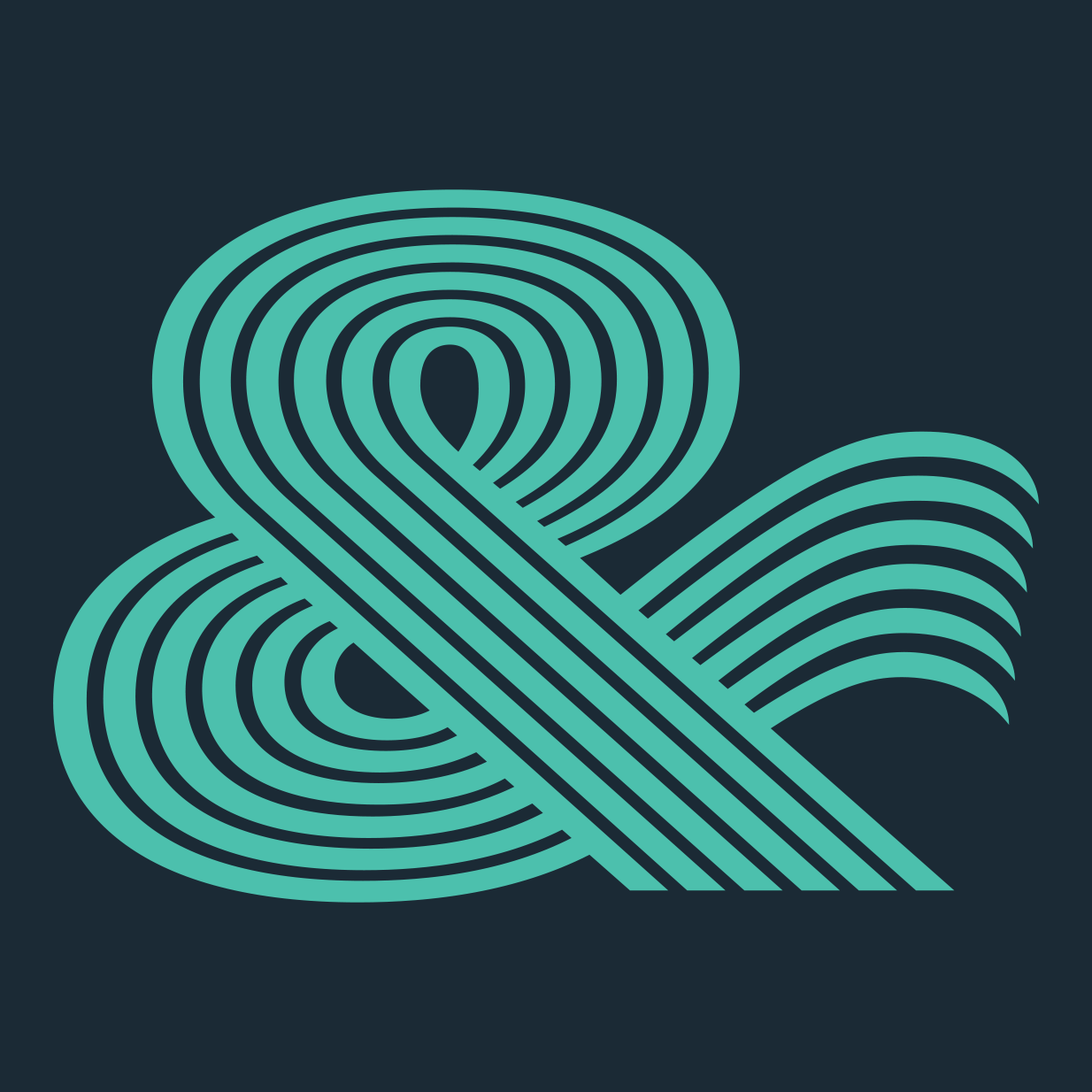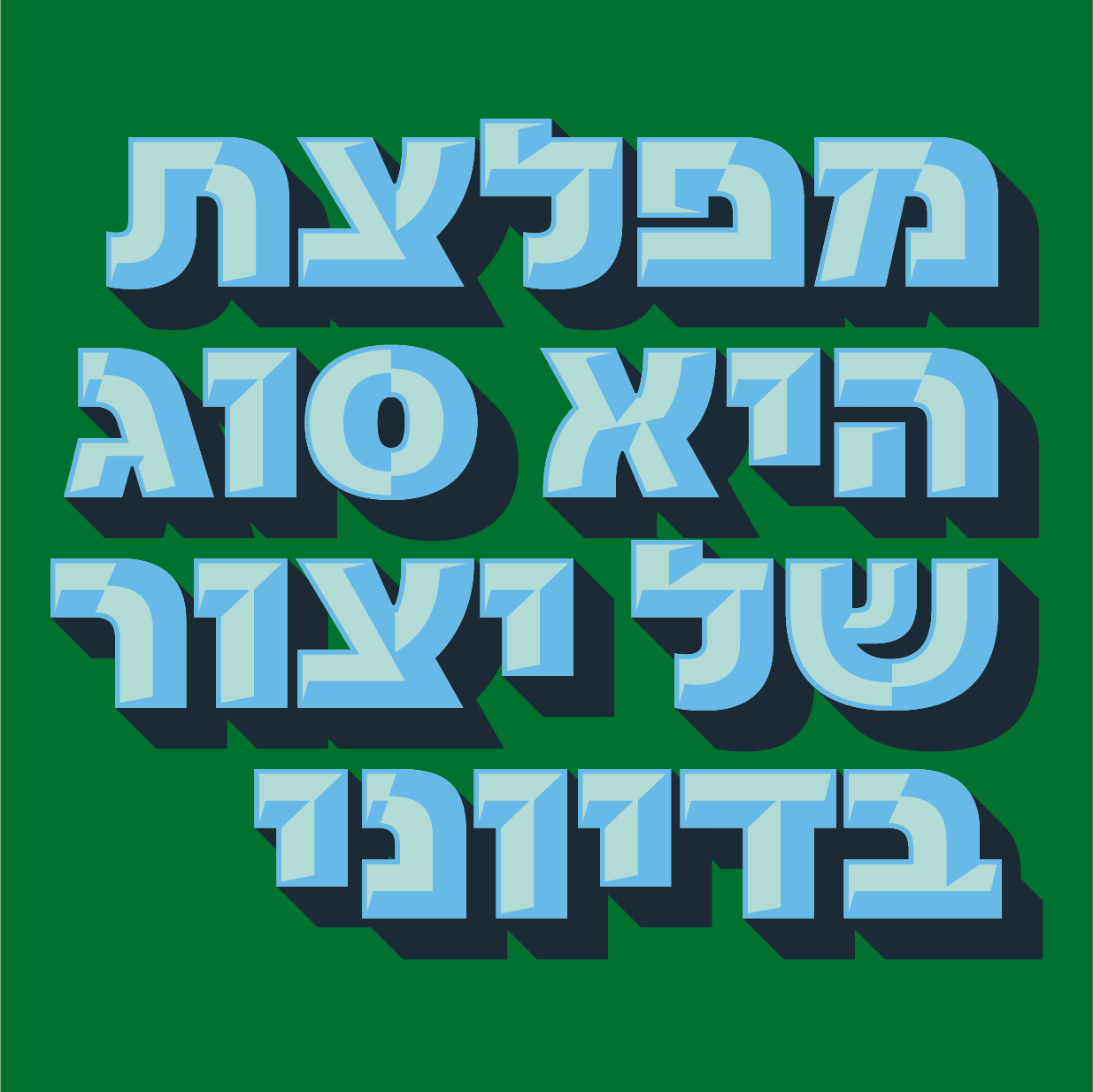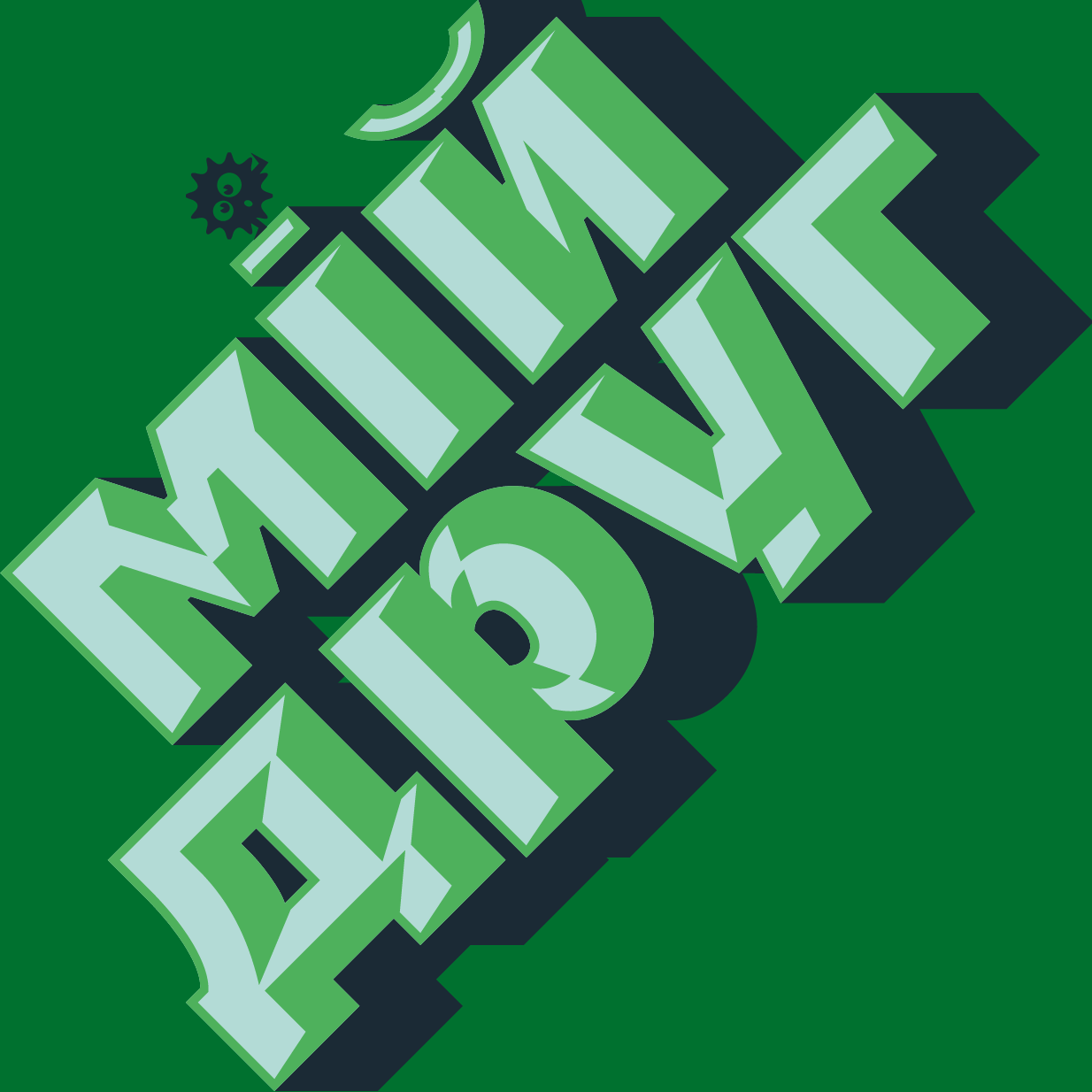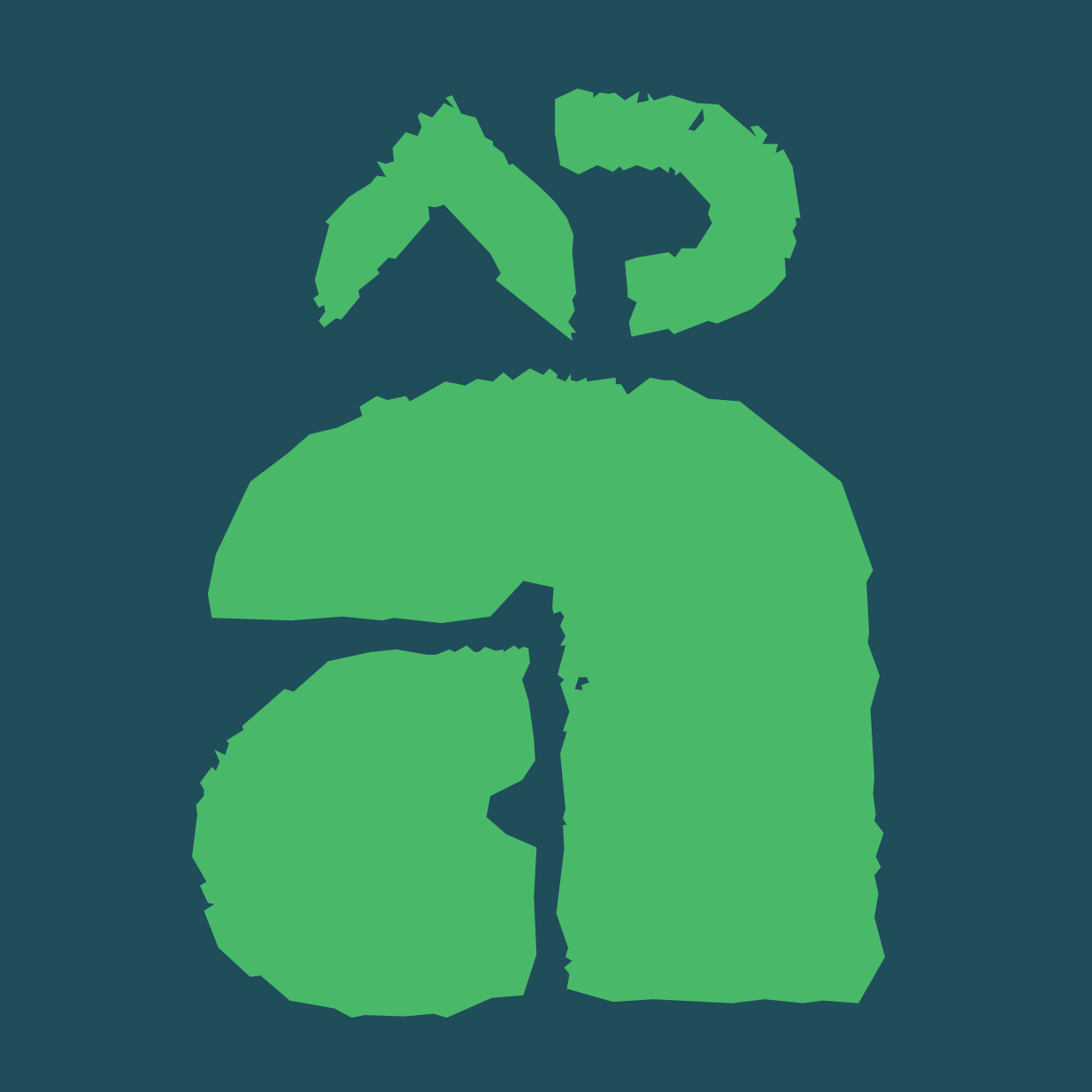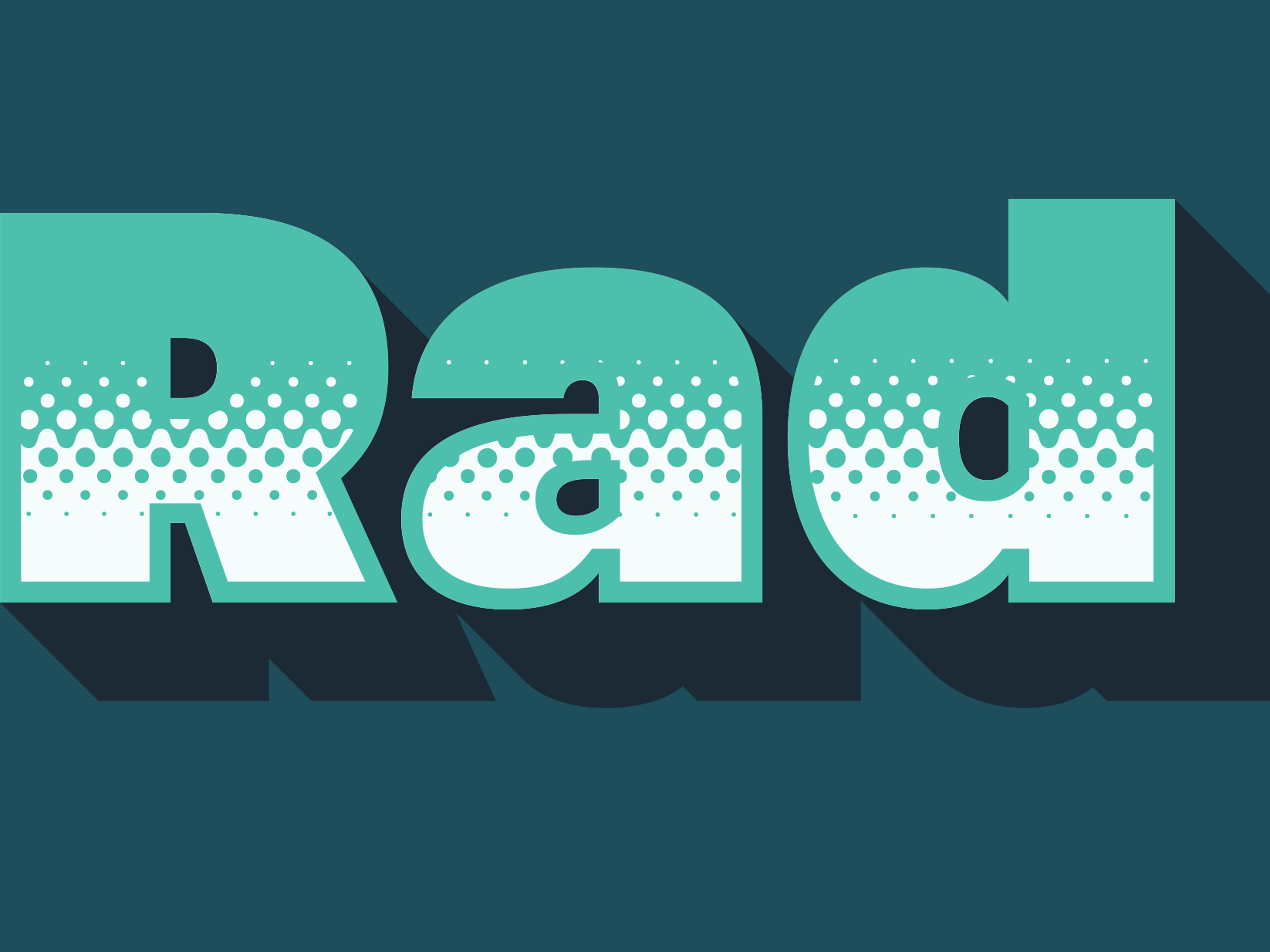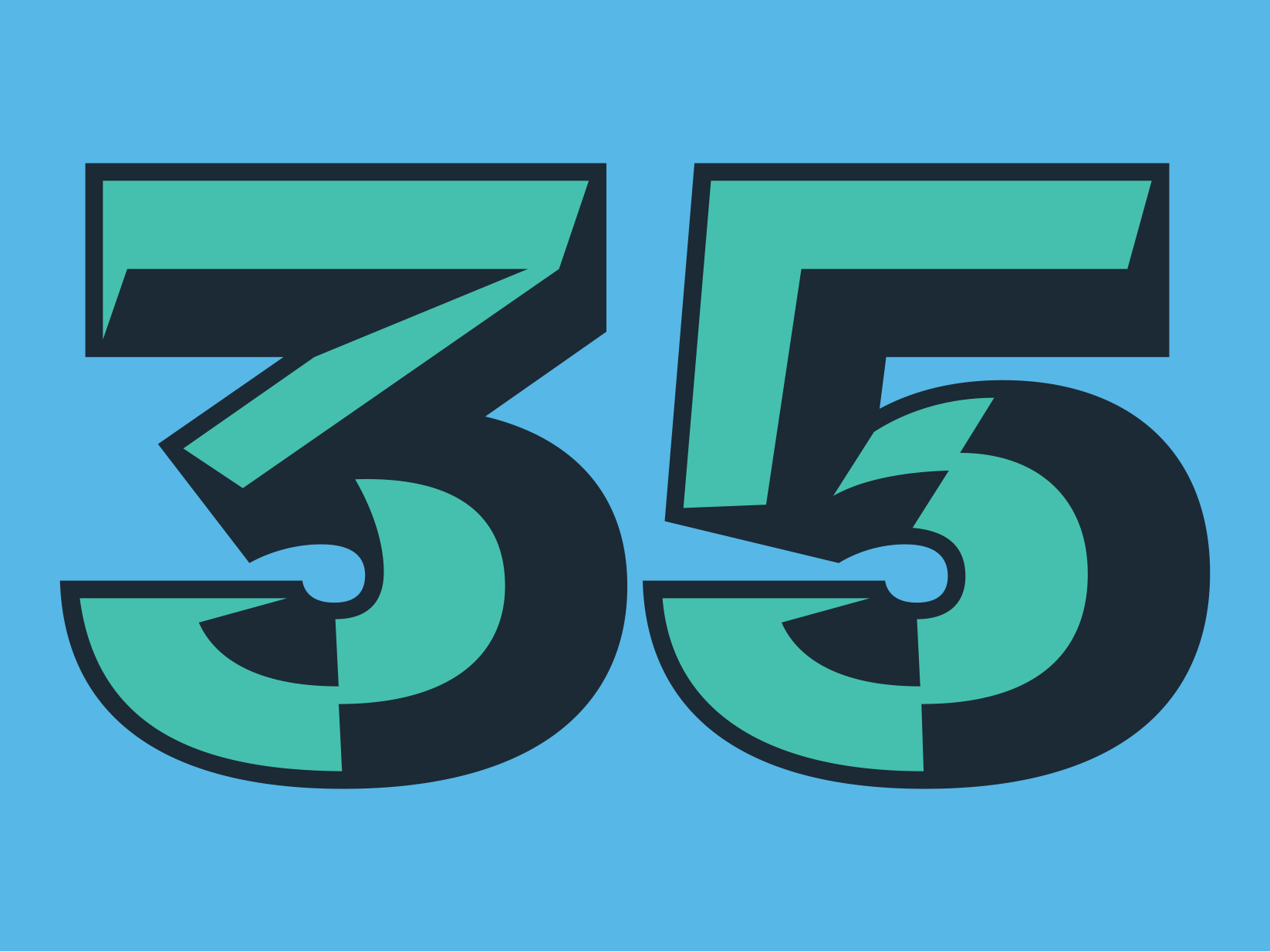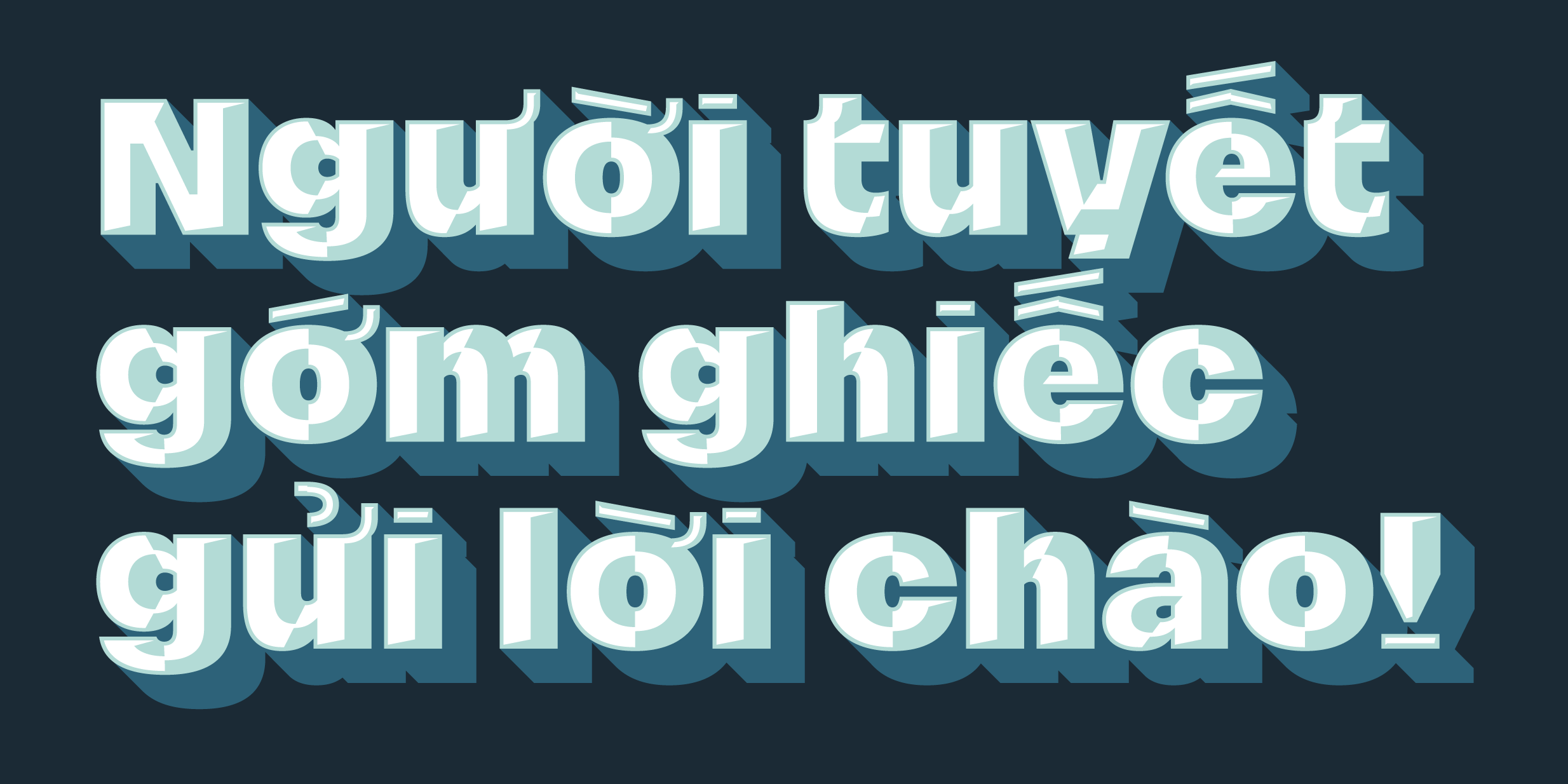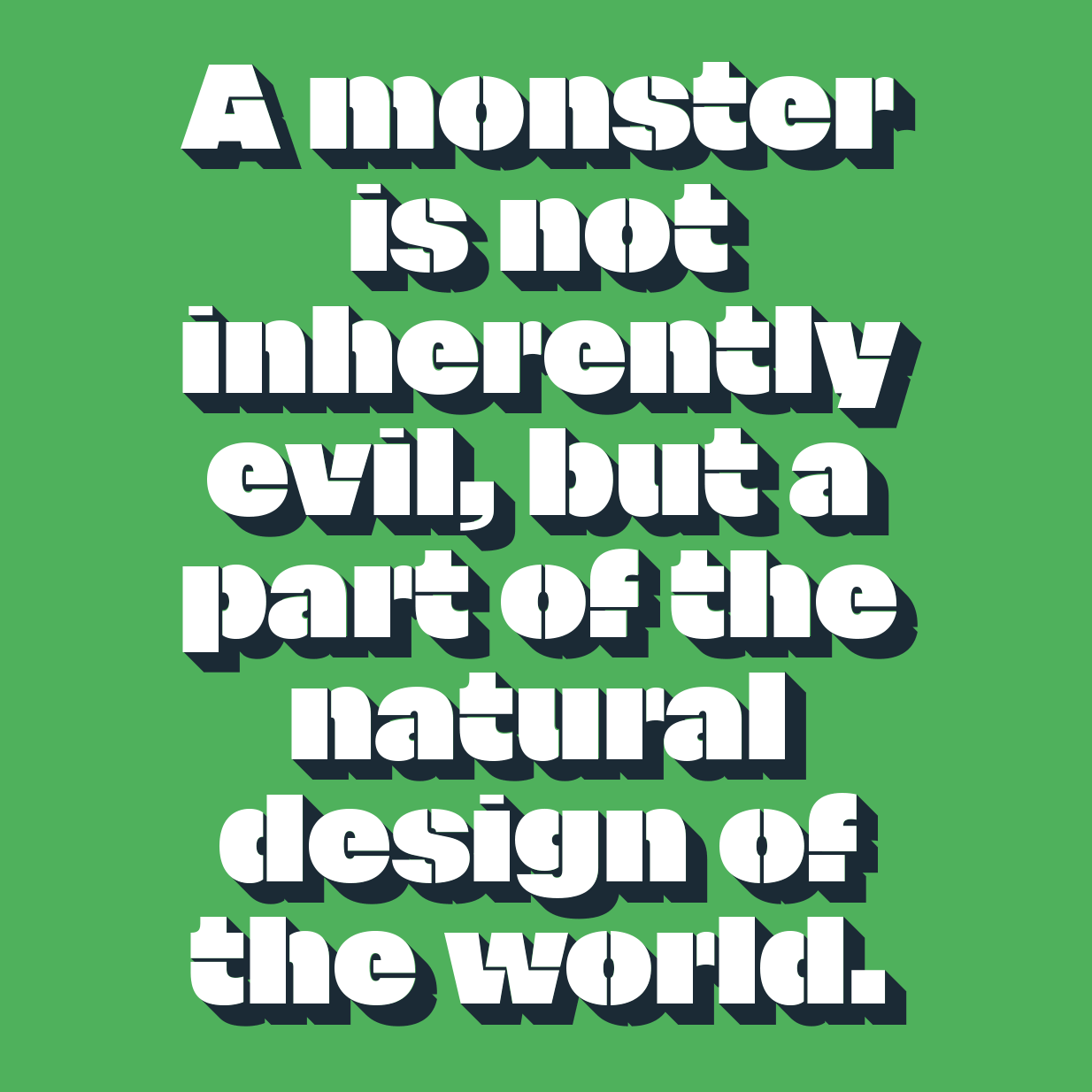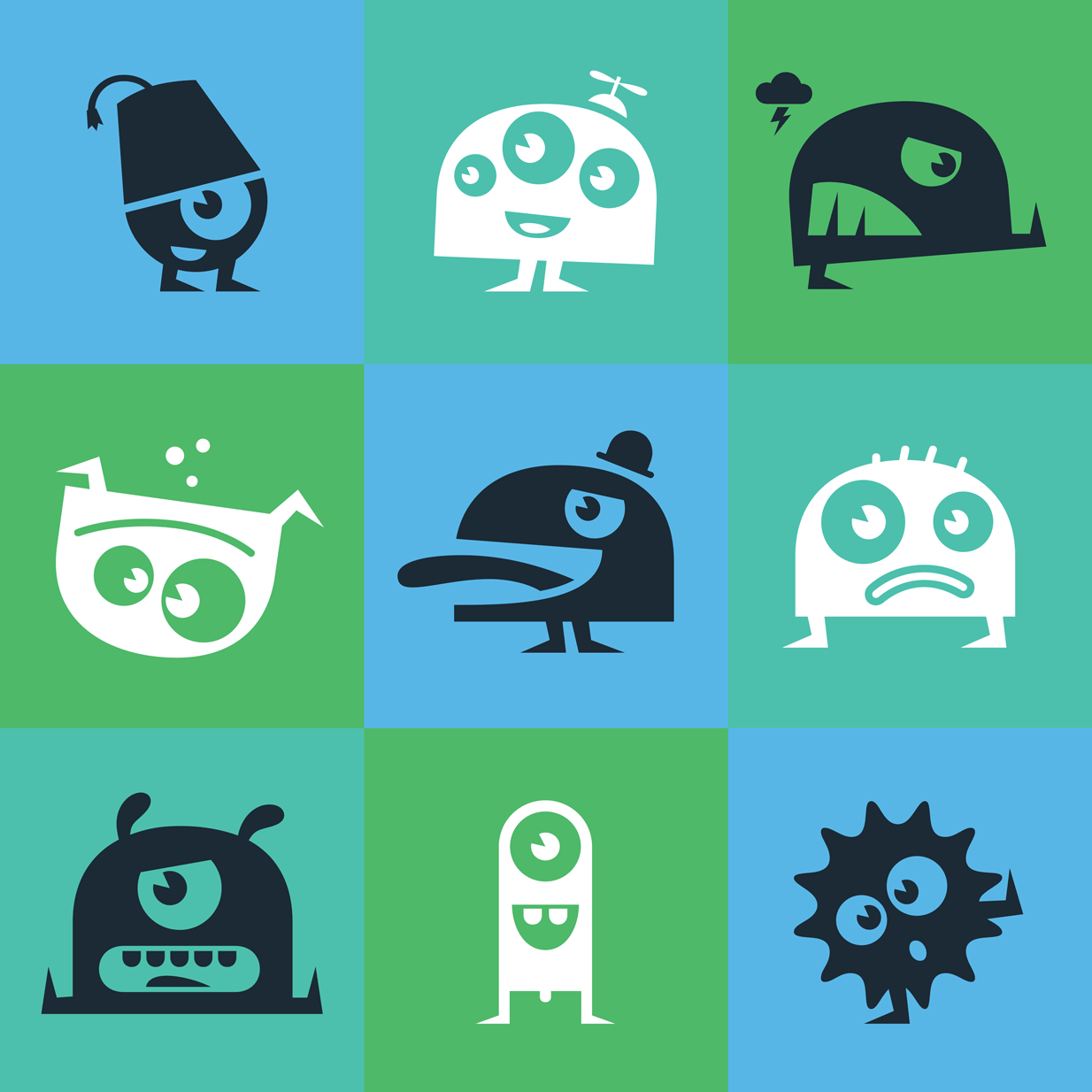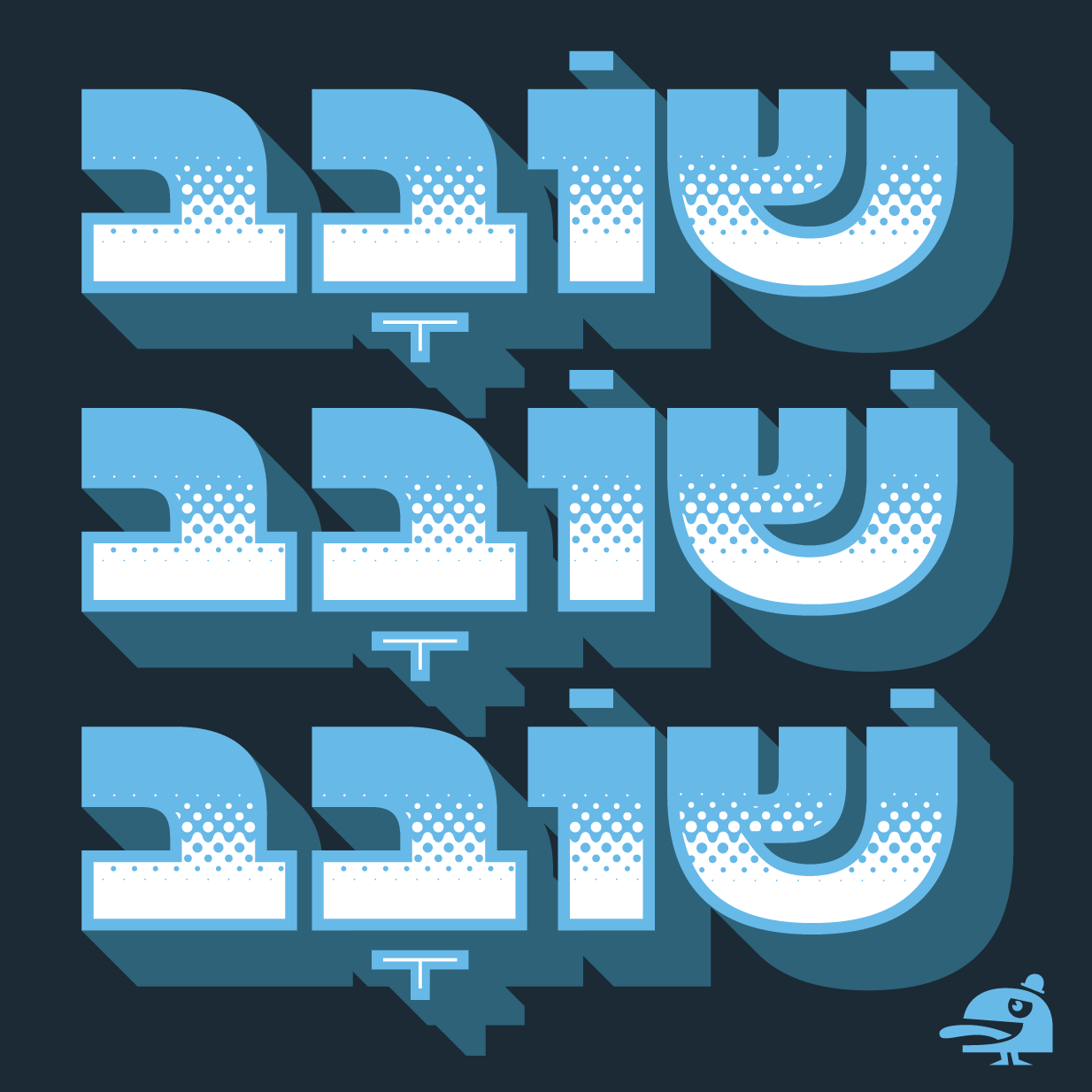
Nitti Mostro
Without a doubt, Nitti Mostro is the boldest family in our Nitti series yet. And the most fun. Eighteen styles in total — beefy, dazzling, flashy, and rough — max out the Grotesque-inspired theme Pieter van Rosmalen put up with Stanley, Nitti, Nitti Typewriter, and Nitti Grotesk — a collection of what we have dubbed ‘Italo-American Grotesques’.
Nitti Mostro is based on the heaviest weights of Nitti Grotesk but geared to daring display uses: Posters, banners, t-shirts, stickers, signs, mugs, you name it. To allow for very compact line spacing, ascenders and descenders have been kept as short as possible. The letter fit is extremely tight for which some Nitti-typical forms had to be altered.
The series is divided into four sub-families: Nitti Mostro with ten styles varying from Gradient to Chrome, Nitti Mostro Comic, a slightly rounded version, Nitti Mostro Disco, the radiant party variant, and Nitti Mostro Stencil, solid or rough. All styles in these sub-families can be layered for vibrant, colorful effects or shading. (We can’t wait to see all the animations and mouse-over effects you’ll come up with for Nitti Mostro on the Web :) A fun extra are the nine cute monster pictograms drawn by Dirk Uhlenbrock.
Nitti Mostro complements the other members of the Nitti series, but at the same time is a design in its own bombastic right.
Discretionary ligatures (dlig)